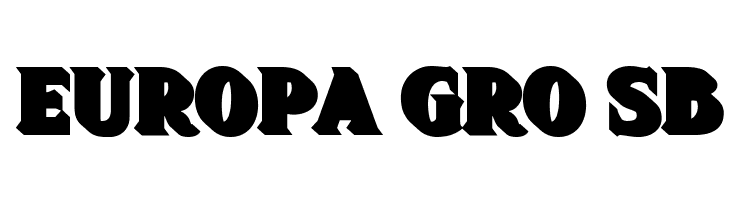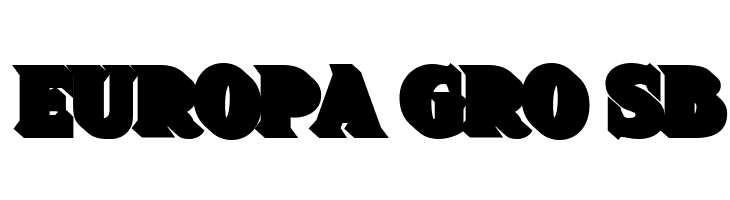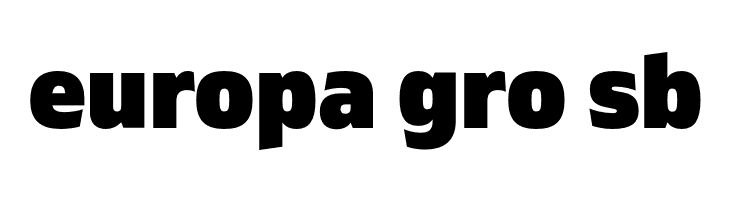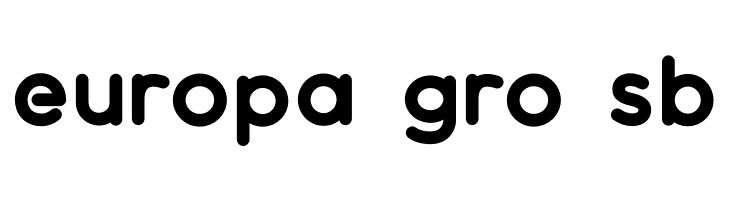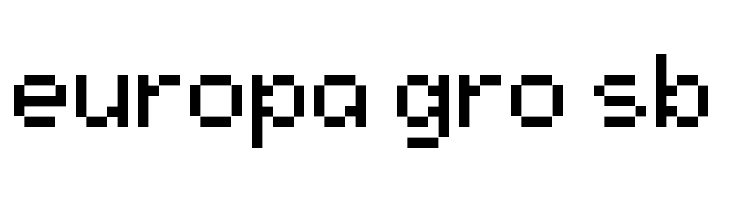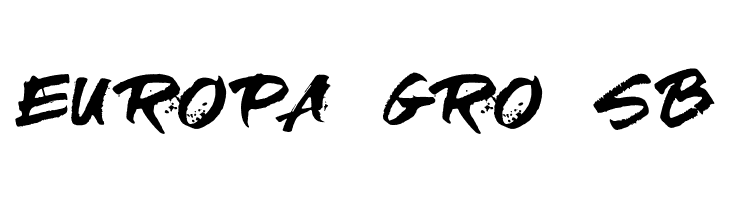
Beacon Font
A bold, gothic-style font with sharp, angular lines and intricate details.
BSRU BANSOMDEJ Font
A modern, elegant font with balanced structure and high readability.
BSRU BANSOMDEJ Black Font
A bold, modern font with strong, decorative elements.
BSRU BANSOMDEJ Bold Font
A bold, modern font with clean lines and strong presence.
BSRU BANSOMDEJ Bold Oblique Font
A bold, oblique font with a modern and dynamic style.
BSRU BANSOMDEJ Oblique Font
An elegant oblique font with smooth, slanted letterforms and moderate contrast.
BSRU BANSOMDEJ SemiBold Font
A clean, modern semi-bold font with consistent stroke width and excellent readability.
Cheque Black Font
A bold serif typeface with strong, authoritative strokes and sharp serifs.
Cheque Regular Font
A modern, geometric font with distinct vertical bisecting lines.
ColorTube Font
A modern, rounded font with a playful and bold style.
Colus Regular Font
A strong, elegant serif font with sharp triangular serifs and a modern aesthetic.
Devastation DEMO Font
A bold, jagged font with a distressed and chaotic appearance.
FHA Sign DeVinne Shade25NC Font
A bold, shadowed font with strong serifs and a three-dimensional effect.
FHA Sign DeVinne ShadeNC Font
Bold, shadowed font with a vintage, three-dimensional look.
FHA Sign DeVinneNC Font
A bold, classic serif font with strong, authoritative strokes.
Gilam Black DEMO Font